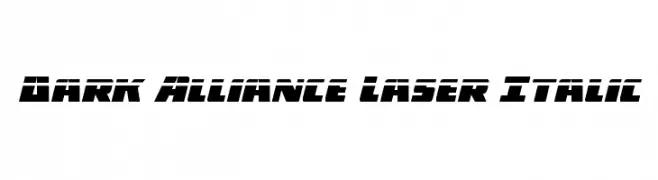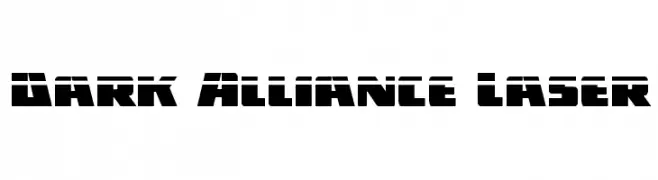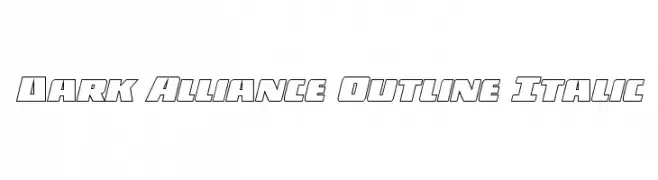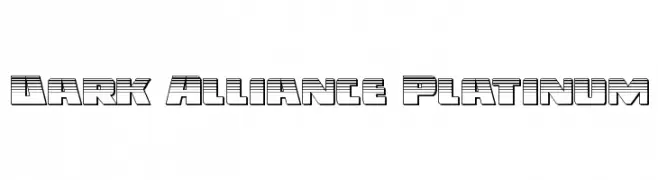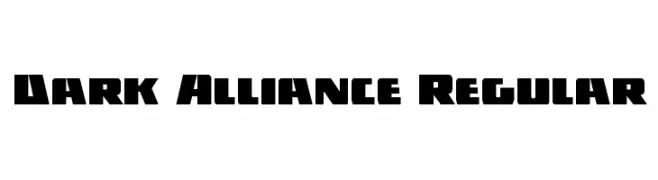
A bold, geometric font with a futuristic and angular design.
A bold, geometric outline font with an italic slant, offering a modern and dynamic look.
A bold, futuristic font with a unique horizontal line gradient effect.
A bold, futuristic italic font with sharp, angular edges.
A bold, futuristic font with sharp angles and a geometric structure.
A bold, futuristic font with a chrome-like, three-dimensional appearance and italicized slant.
A bold, italicized font with a halftone effect, offering a futuristic and dynamic style.
A bold, futuristic font with a 3D effect and geometric design.
A bold, futuristic font with a chrome-like, layered design.
A bold, futuristic italic font with a three-dimensional effect and strong presence.